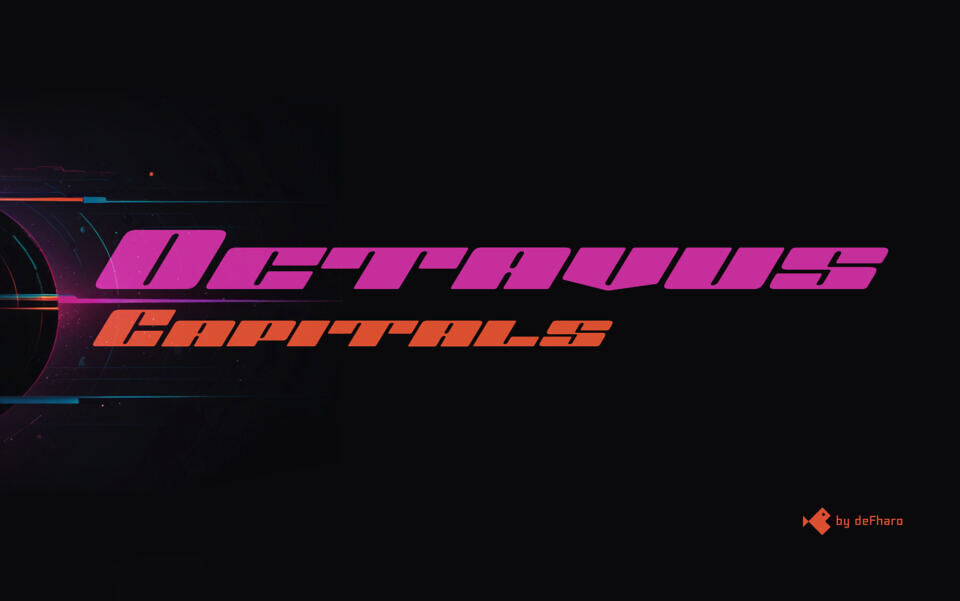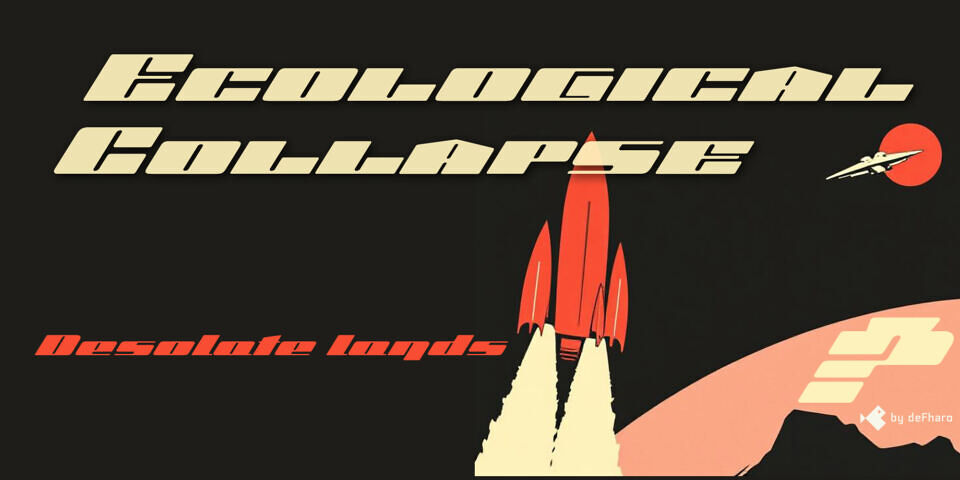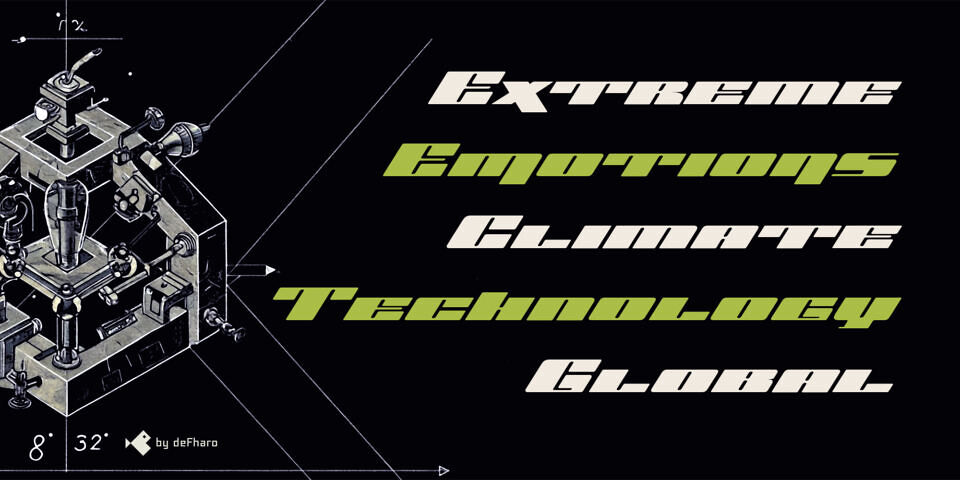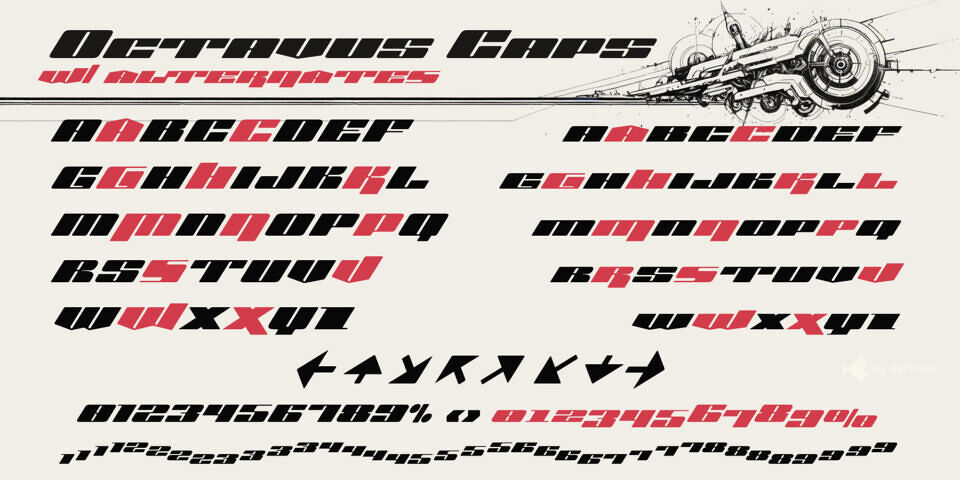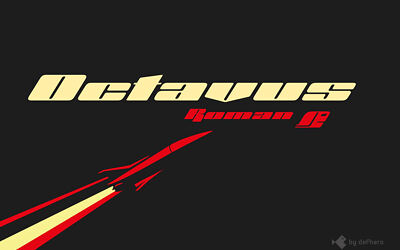
Octavus Caps is a retro-futuristic, technological, ultra wide and slanted typeface, with a 32-degree slant that gives it an unmistakable dynamism and bold minimalism.
This is a robust and bold typeface family, available in two versions: Roman and Capitals. Its expanded proportion and black weight give it an unmistakable personality that delves into bold minimalism.
The 32-degree slant gives it a uniquely dynamic feel; its aesthetic fuses the present and the distant future, and will undoubtedly transport you to impossible universes. It is thick, bold, and modern, with a dramatic contrast between its horizontal and vertical stems. Each letter, with a rounded finish and steep slant, creates an incredibly dynamic and technological visual context with vintage connotations.